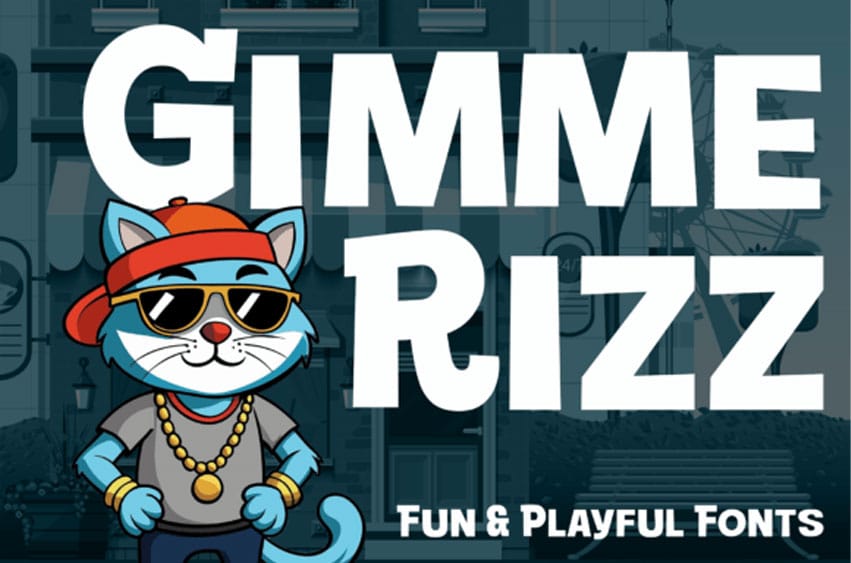
Gimme Rizz Font is a bold, quirky, and playful display font inspired by comic books, cartoon typography, and kids’ entertainment visuals. With chunky shapes and expressive letterforms, this font brings a dose of charm and personality to every word you type.
Perfect for:
– Kids’ book covers and storybooks
– Toy packaging and branding
– Children’s posters and invitations
– Playful logo designs
– Comic-style artwork
– Fun merchandise and apparel graphics
Whether you’re designing for little readers or just want to add a humorous, energetic vibe to your project, Gimme Rizz gives your text a bold voice that’s full of character.
Add a little swagger to your type.